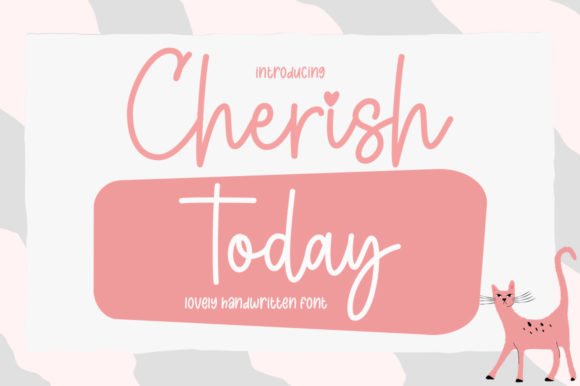
Adding a Touch of Whimsy to Your Creations
Do you ever have those moments when you’re working on a project and the right font makes all the difference? For me, it’s when I’m designing a custom invitation or a special gift for a loved one – the perfect font can elevate the entire experience and make it truly unforgettable. That’s why I’m excited to share with you the Cherish Today Font, a stunning script font that’s sure to add a touch of elegance to your crafty projects.
With its thin lettering and graceful curves, the Cherish Today Font is perfect for designers who want to create beautiful and stylish projects. Whether you’re a seasoned pro or just starting out, this font is sure to be a valuable addition to your design toolkit. Its versatility makes it ideal for a wide range of applications, from wedding invitations to custom greeting cards and more.
Key Features of Cherish Today Font
- Unique Characteristics: Features a modern, elegant script design with subtle flourishes and connections, ideal for creating beautiful and personalized content.
Designer Review: Cherish Today Font
Overall, I think the Cherish Today Font has some great qualities that make it a solid choice for designers, ✨ but it’s not without its limitations. Here’s my honest review.
- ✨ Elegant and Modern Aesthetic: The font’s design exudes a sense of sophistication and timelessness, making it suitable for a wide range of applications, from branding to publishing.
- ✨ High-Quality Renditions: The font’s letterforms are well-crafted, with crisp lines and smooth curves that make it a pleasure to work with.
- ✨ Versatile: The font’s font weight range and style variations make it adaptable to different design contexts.
- ⚠️ Limited Language Support: The font only supports Latin-based languages, which may limit its appeal for designers working with non-Latin scripts.
- ⚠️ Limited Kerning: While the font’s letterforms are well-crafted, the kerning could be improved, particularly for certain letter combinations.
The Cherish Today Font is a solid choice for designers seeking a modern and elegant font. While it has some limitations, its strengths make it a worthwhile option for a wide range of applications. With some tweaks to address the limitations, this font could be a true showstopper.
Getting the Most Out of Cherish Today Font
To get the most out of the Cherish Today font, try the following:
Use it for titles and headings to add a touch of elegance and sophistication.
Pair it with bold fonts for a striking contrast.
The Cherish Today font is perfect for:
Branding and marketing materials.
Personalized gifts and cards.
Alternatives to Cherish Today Font for Designers
The Cherish Today Font is a popular script font used for various design purposes, including wedding invitations, quotes, and title designs. However, there are several alternatives that offer similar characteristics and can be used in different contexts.
The Great Vibes Font is a modern script font that offers a unique, elegant look. It’s ideal for use in designs that require a touch of sophistication, such as wedding invitations, menus, and product labels. Compared to Cherish Today Font, Great Vibes has a more refined and delicate appearance, making it suitable for formal designs.
The Carolyna Pro Font is a high-end script font that exudes luxury and sophistication. It’s perfect for use in high-end designs, such as luxury branding, fashion designs, and fine art prints. Compared to Cherish Today Font, Carolyna Pro has a more dramatic and elaborate appearance, making it ideal for designs that require a sense of opulence.